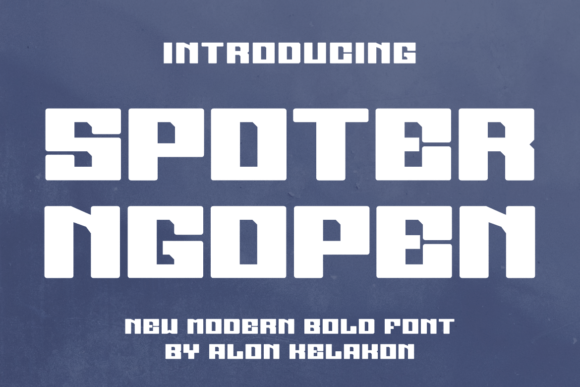
Journey into the captivating world of typography with Spoter Ngopen Font, the ultimate font for script reading. Step into a realm where stories come alive, emotions ignite, and words dance off the page. Spoter Ngopen is not just a font; it's an experience.
With its distinctive sans serif design, Spoter Ngopen draws you into a visual symphony. Its smooth, flowing lines guide your eyes effortlessly across the page, immersing you in the narrative. Each letter is meticulously crafted to maximize readability, allowing you to devour scripts with ease.
Dive deep into the world of Spoter Ngopen's remarkable versatility. Whether you're crafting movie titles, designing posters, creating album covers, or expressing your creativity through logos, Spoter Ngopen rises to the occasion. Its adaptable nature makes it a perfect choice for a wide range of projects.
Designed by the ingenious alonkelakon, Spoter Ngopen is a testament to artistry and innovation. With its unique style, it stands out from the crowd, leaving a lasting impression on your audience. Unleash your imagination and let Spoter Ngopen elevate your designs to new heights.
Embrace the beauty of Spoter Ngopen and unlock a new level of storytelling. Experience the joy of reading scripts, knowing that every word is perfectly rendered and easily absorbed. Let Spoter Ngopen be your trusted companion on your creative journey, where imagination knows no bounds.